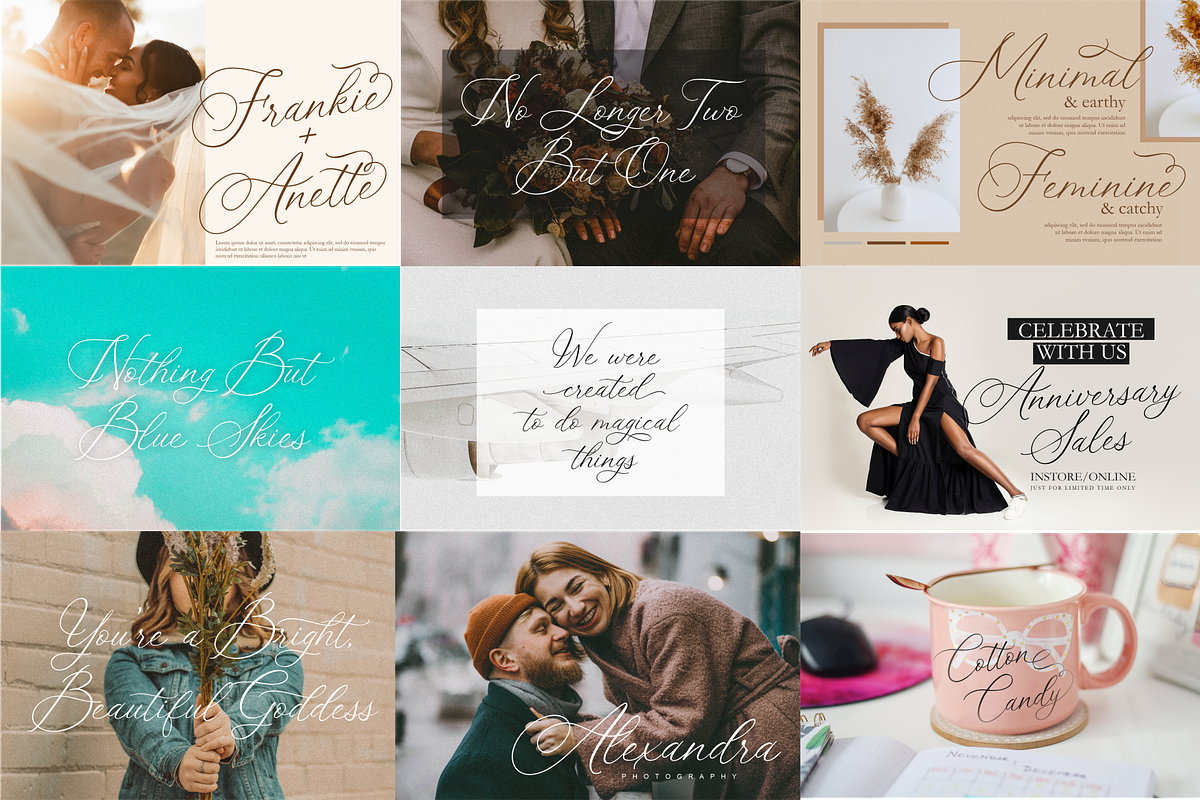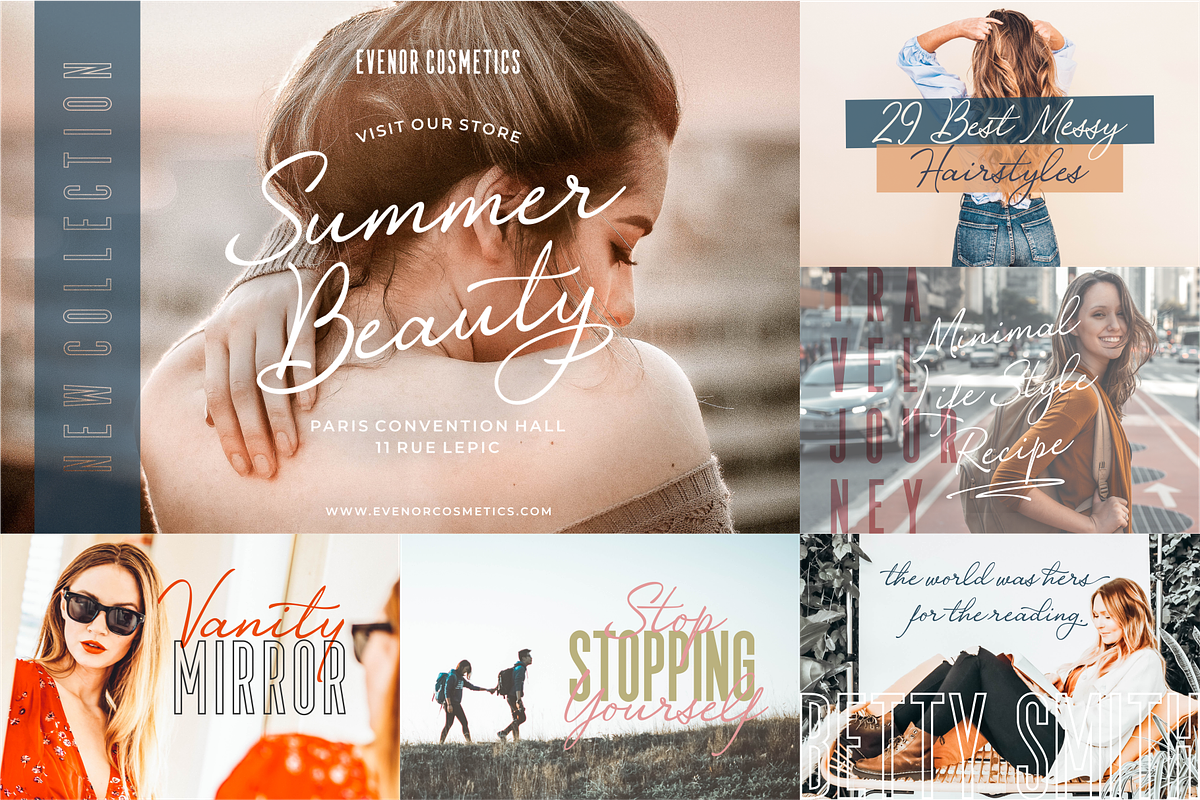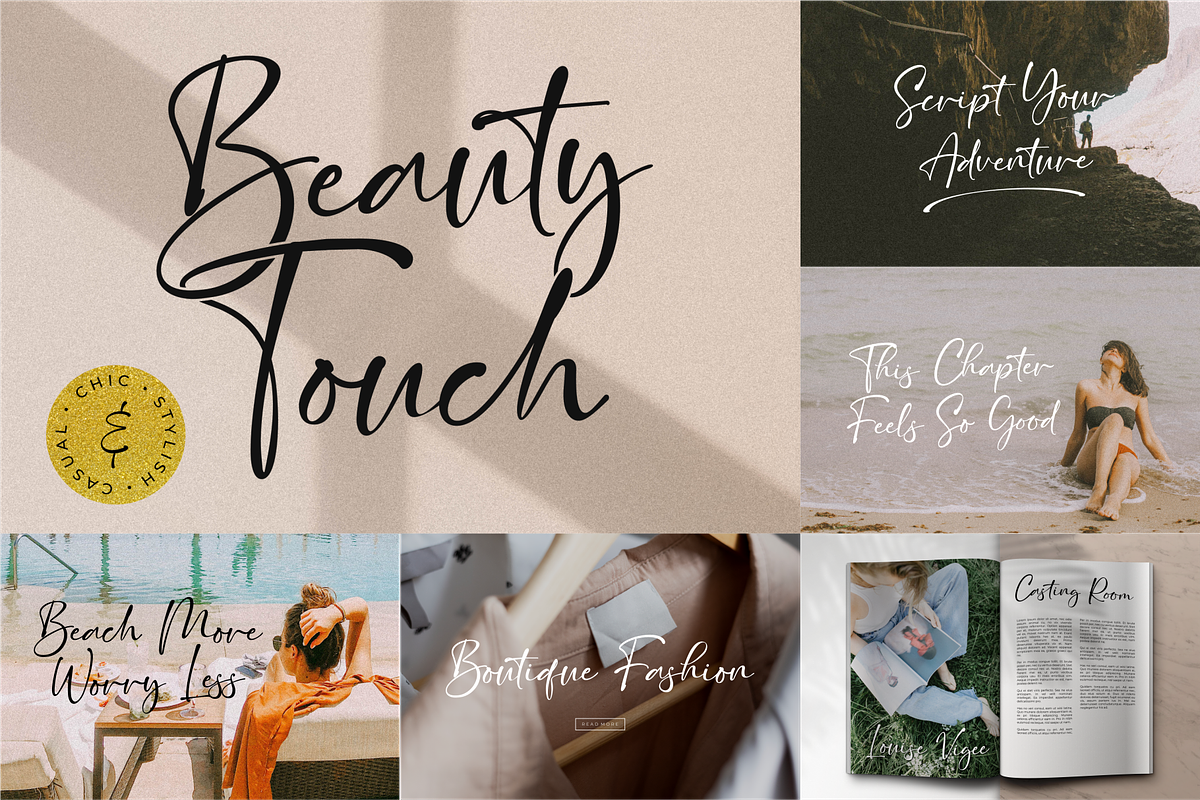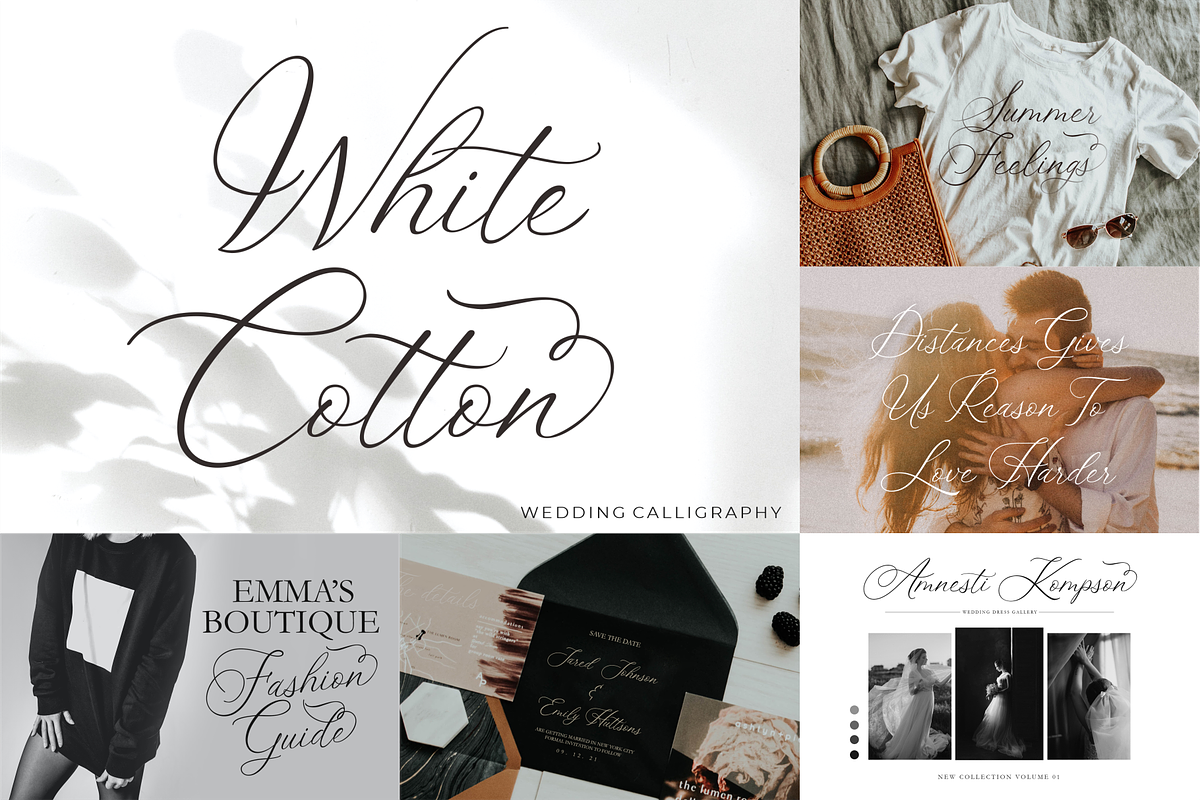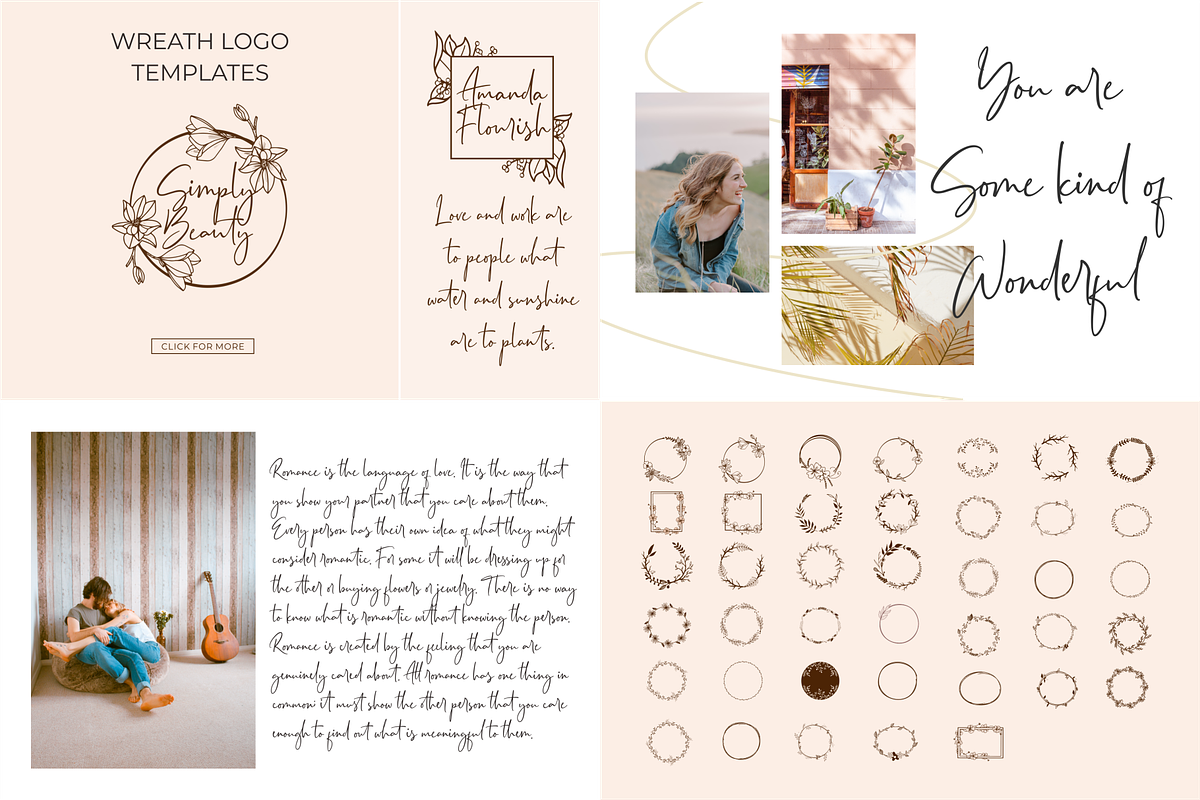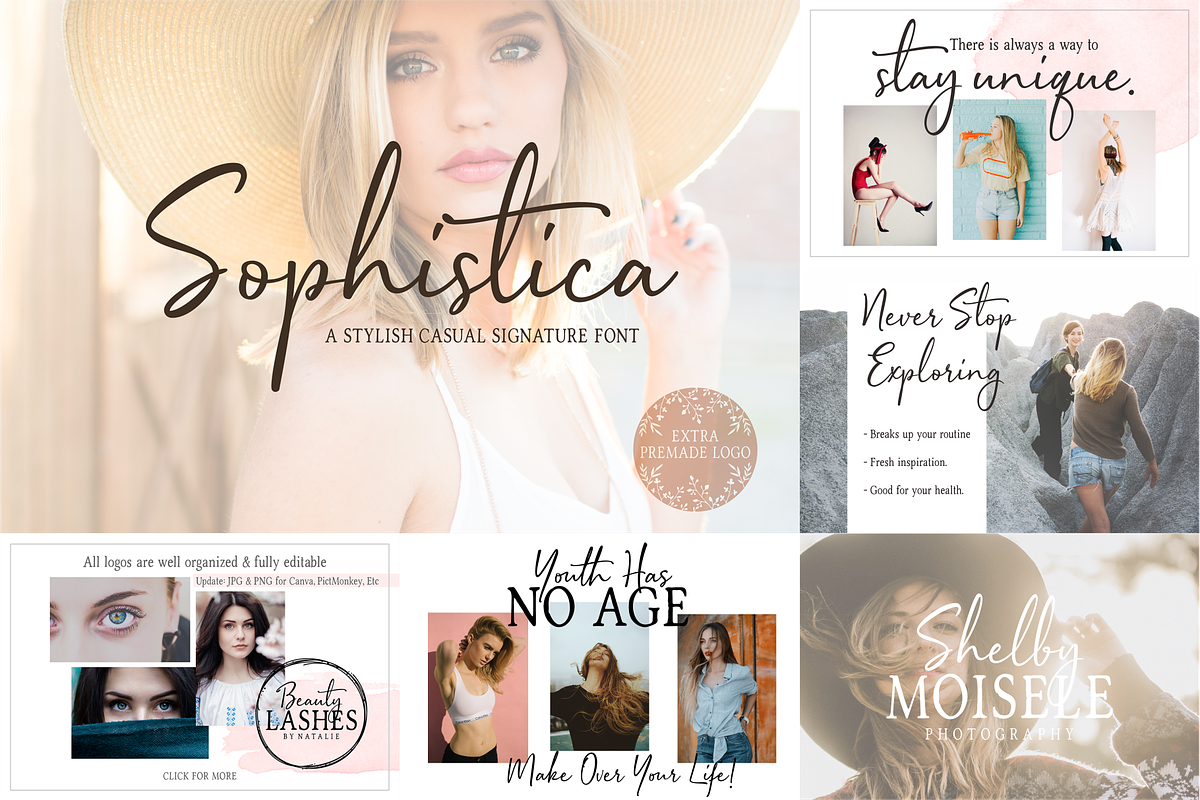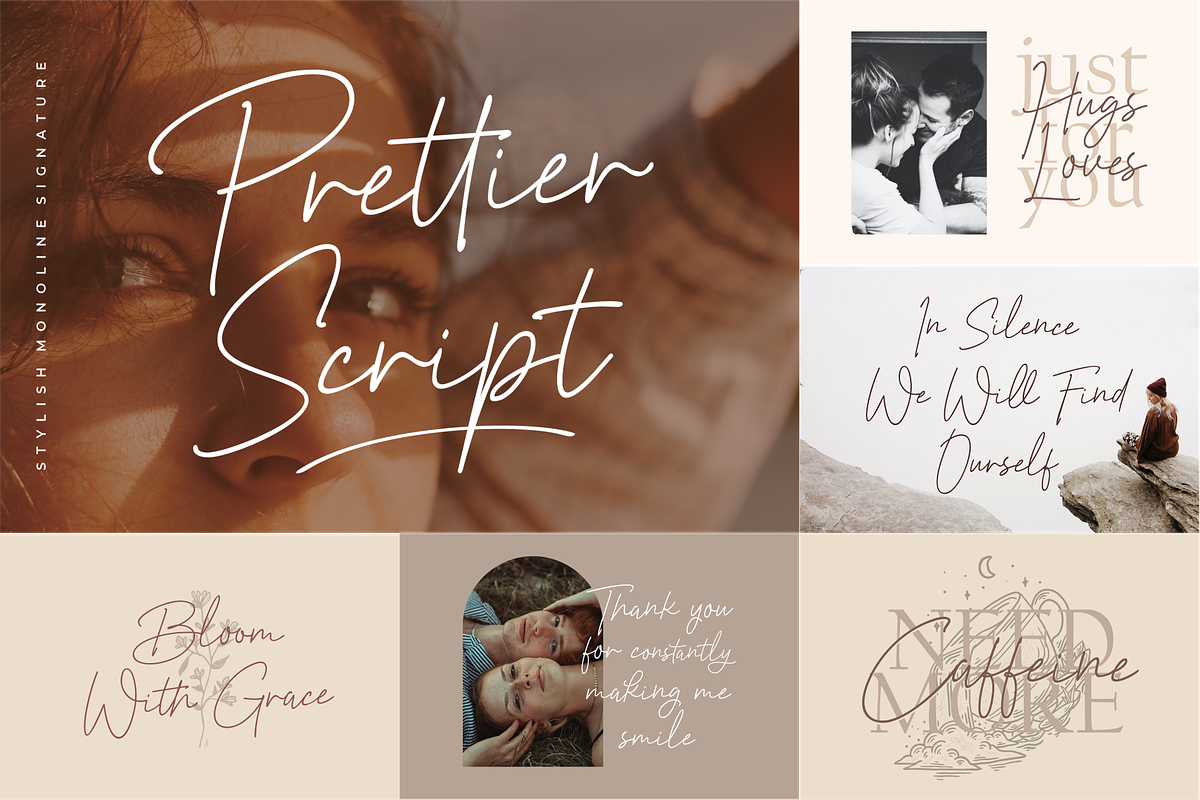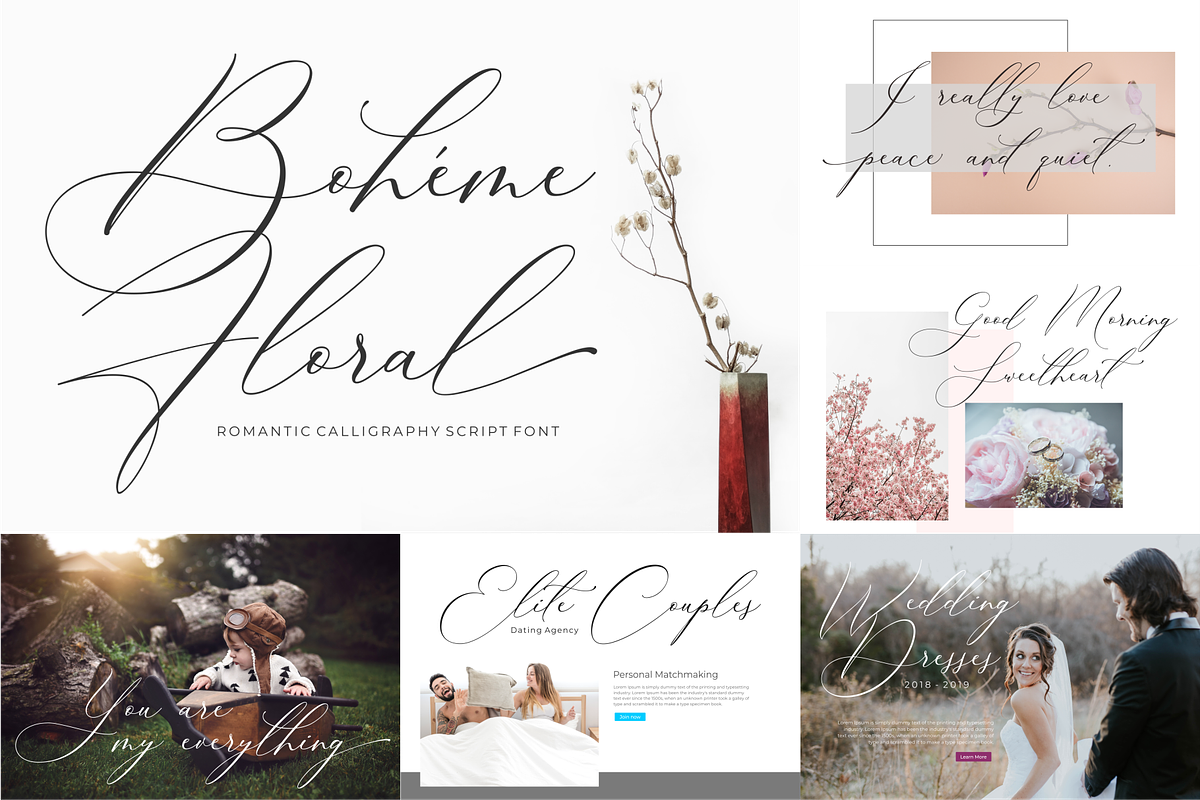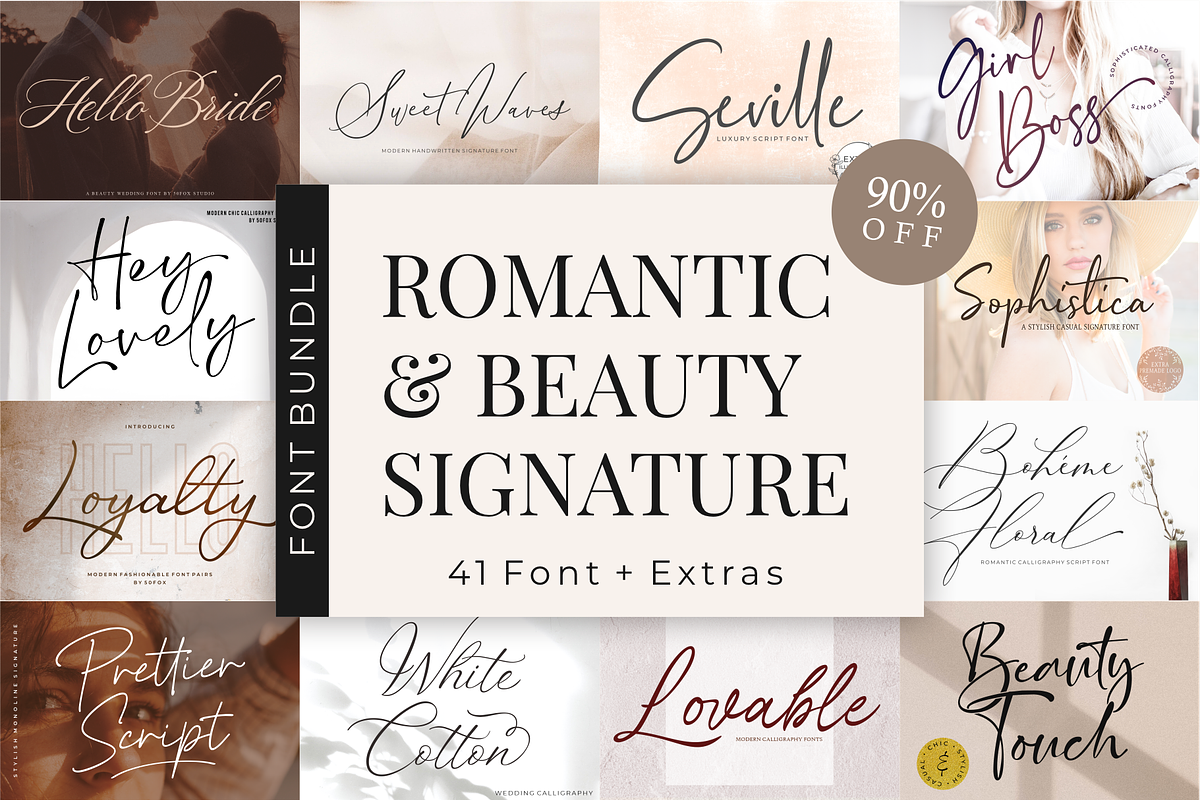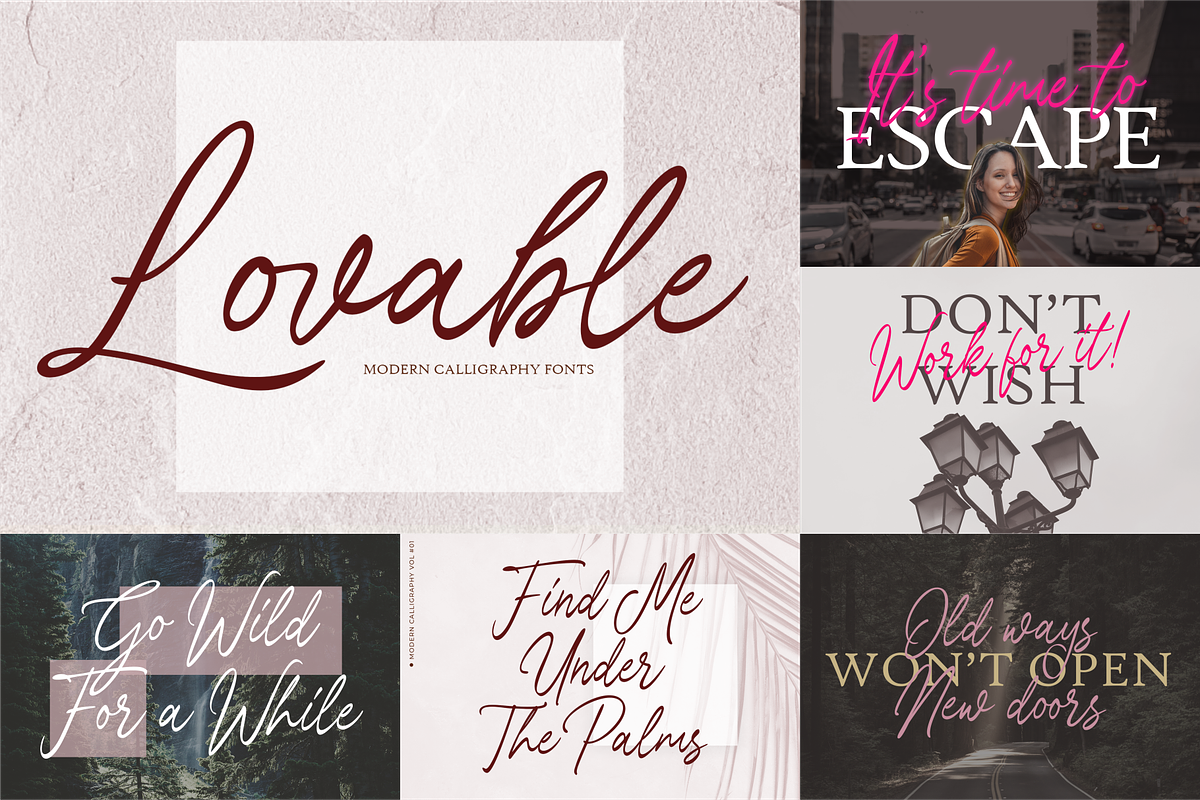
Romantic & Beauty Signature Bundle
Hello, lovers! Welcome to Romantic & Beauty Signature Fonts! ๐
This bundle contains 41 fonts including a collection of the best-selling script fonts that have a stylish, elegant and luxurious appearance. This bundle also contains lots of extra logos and vectors.